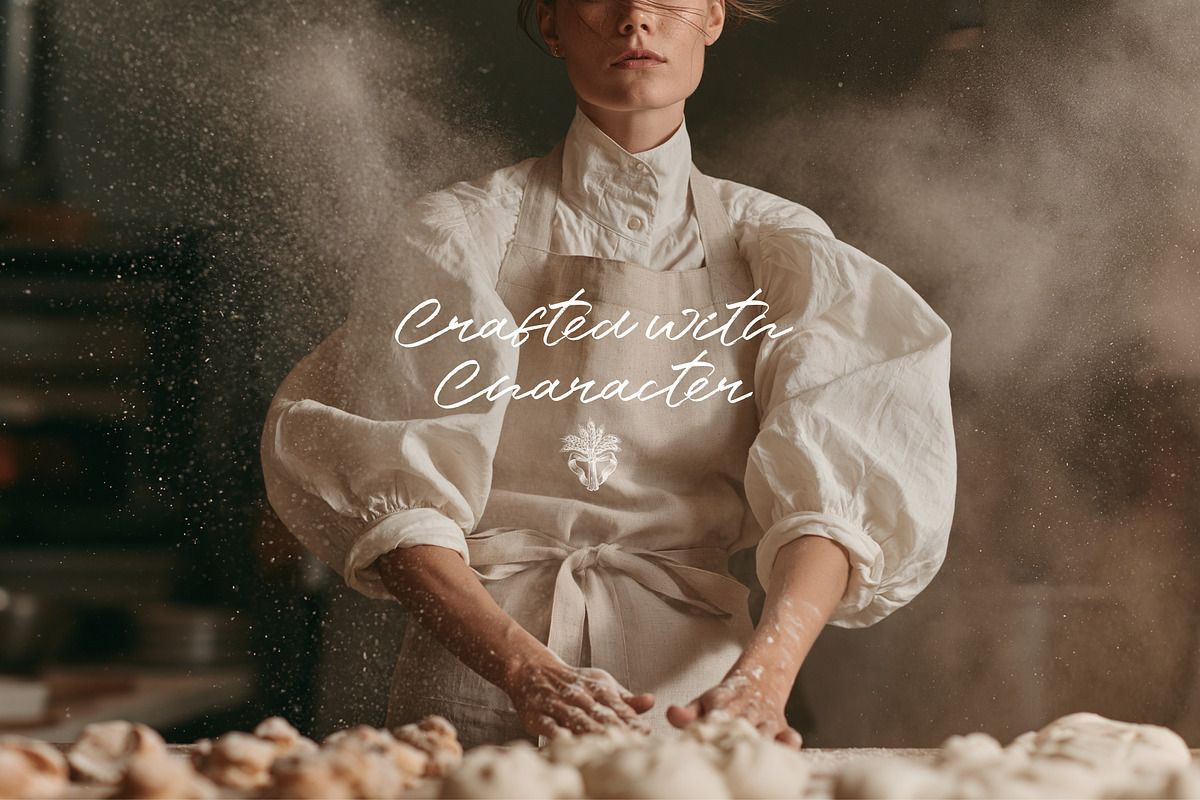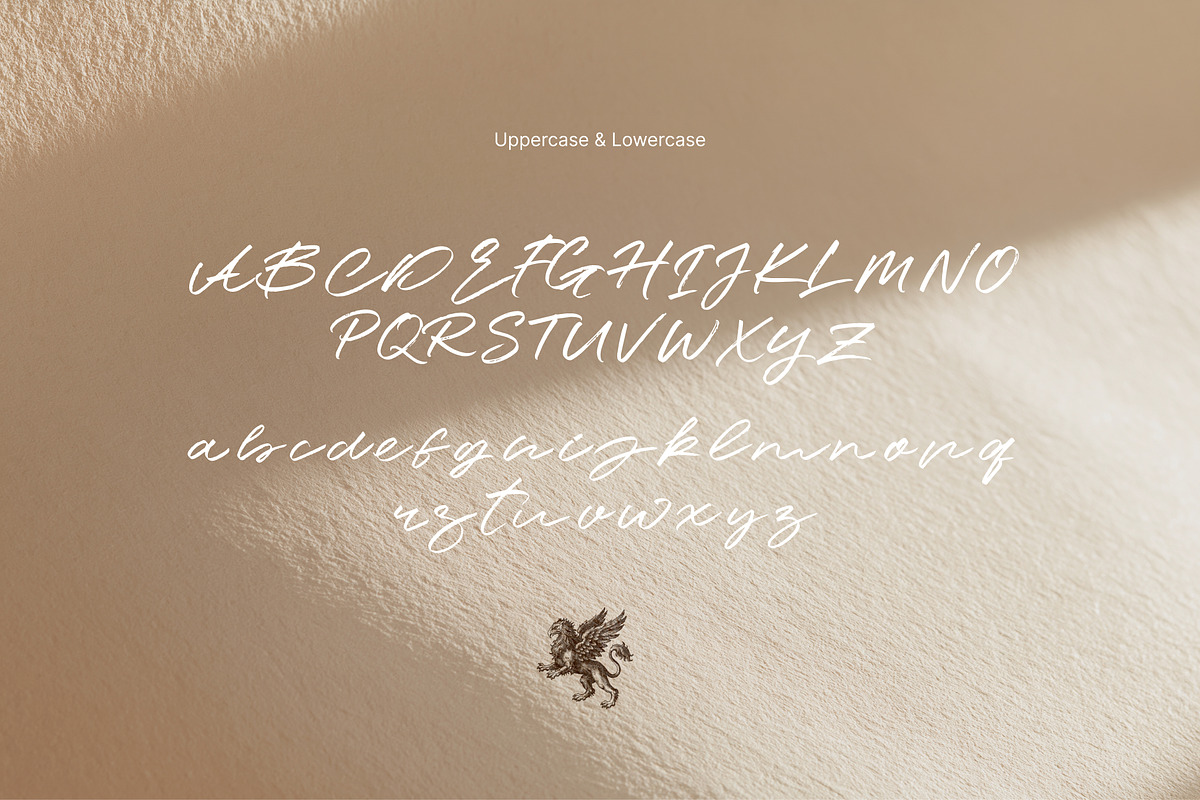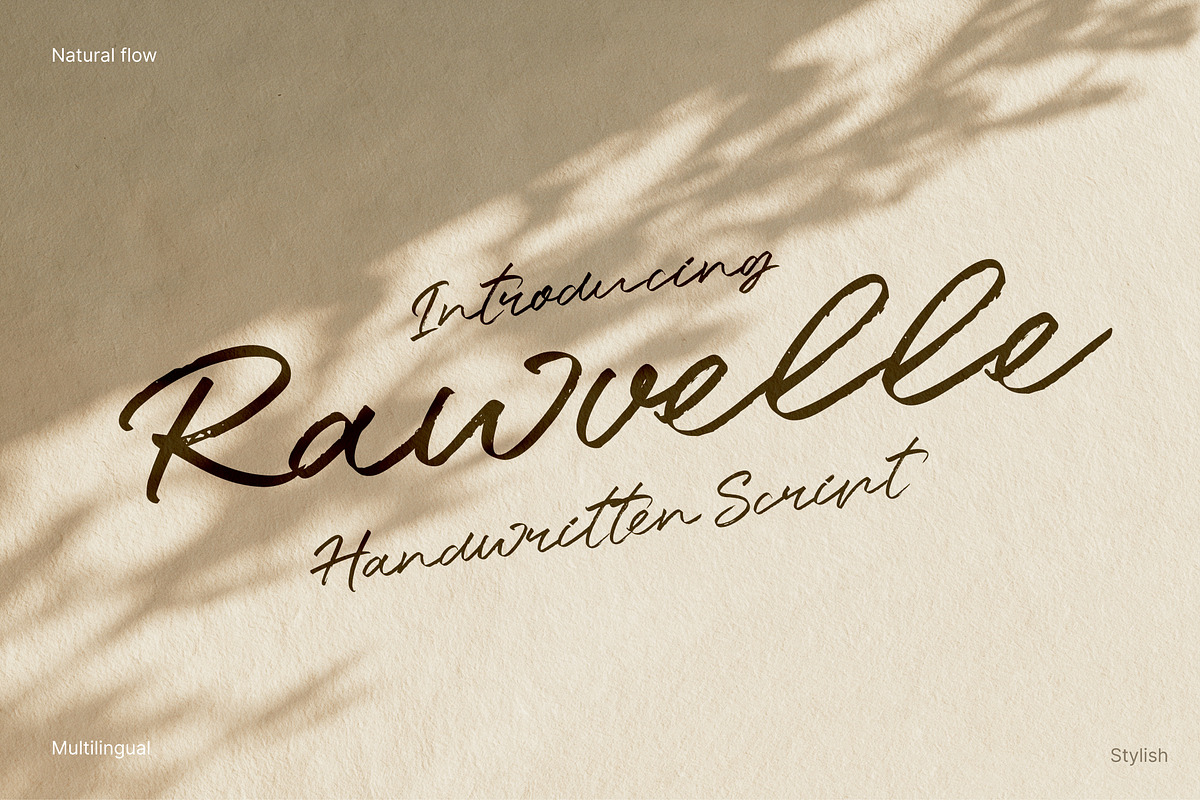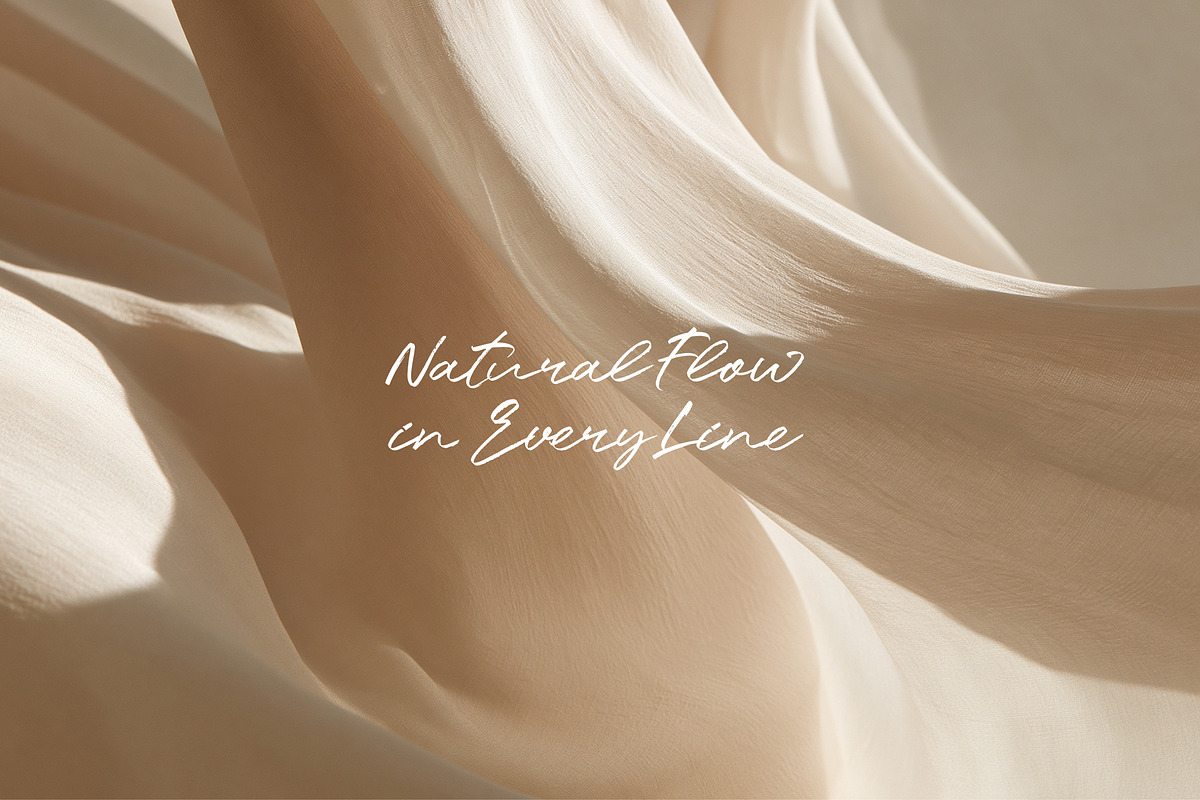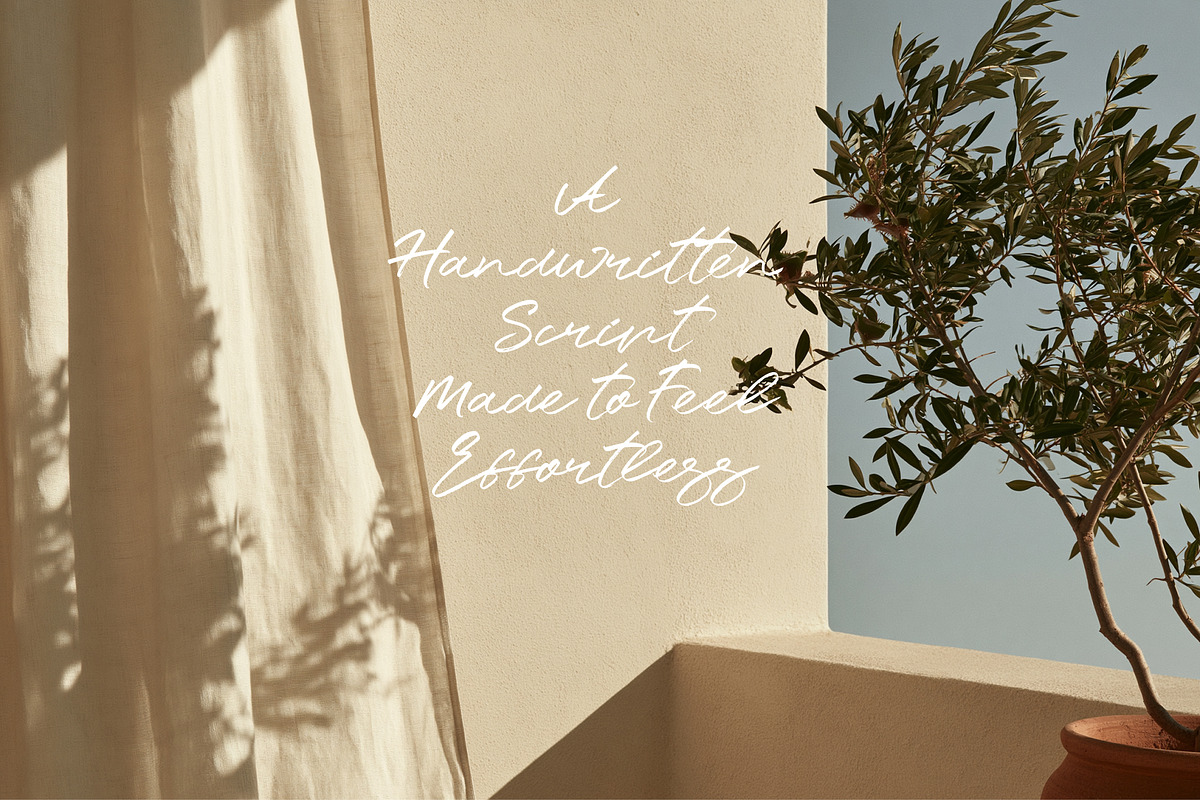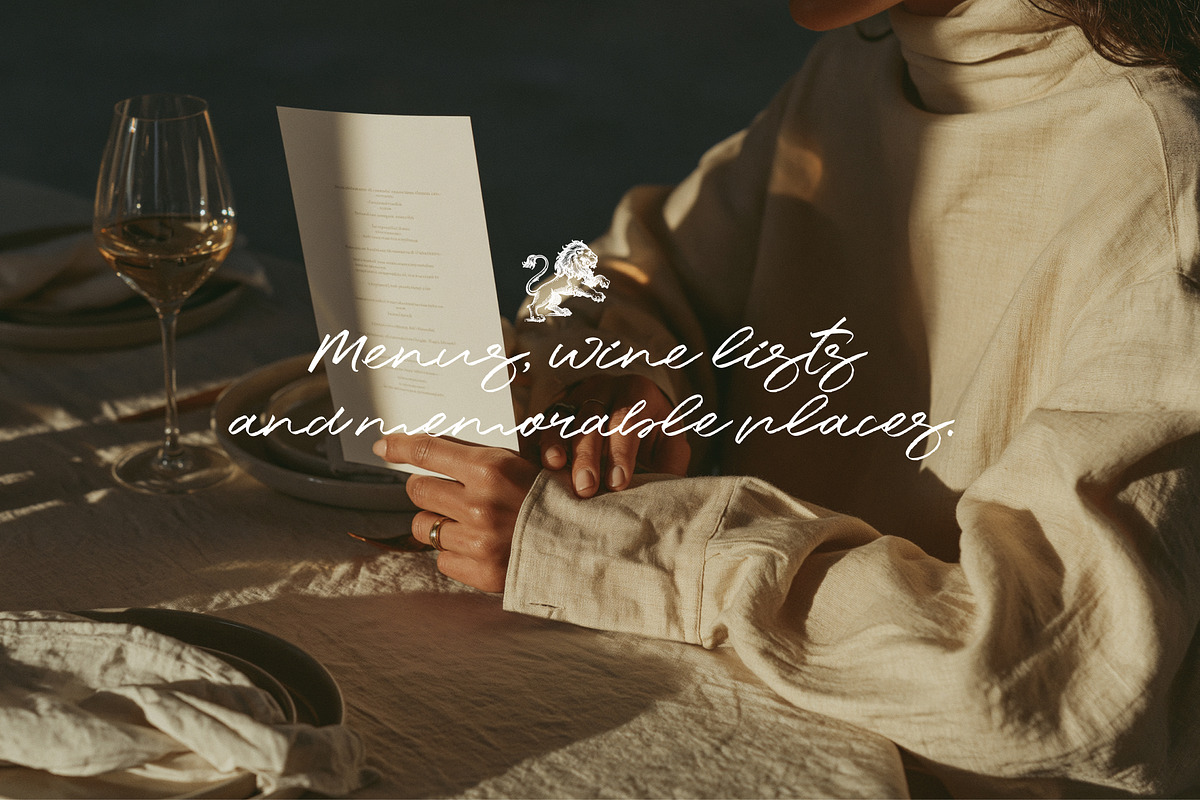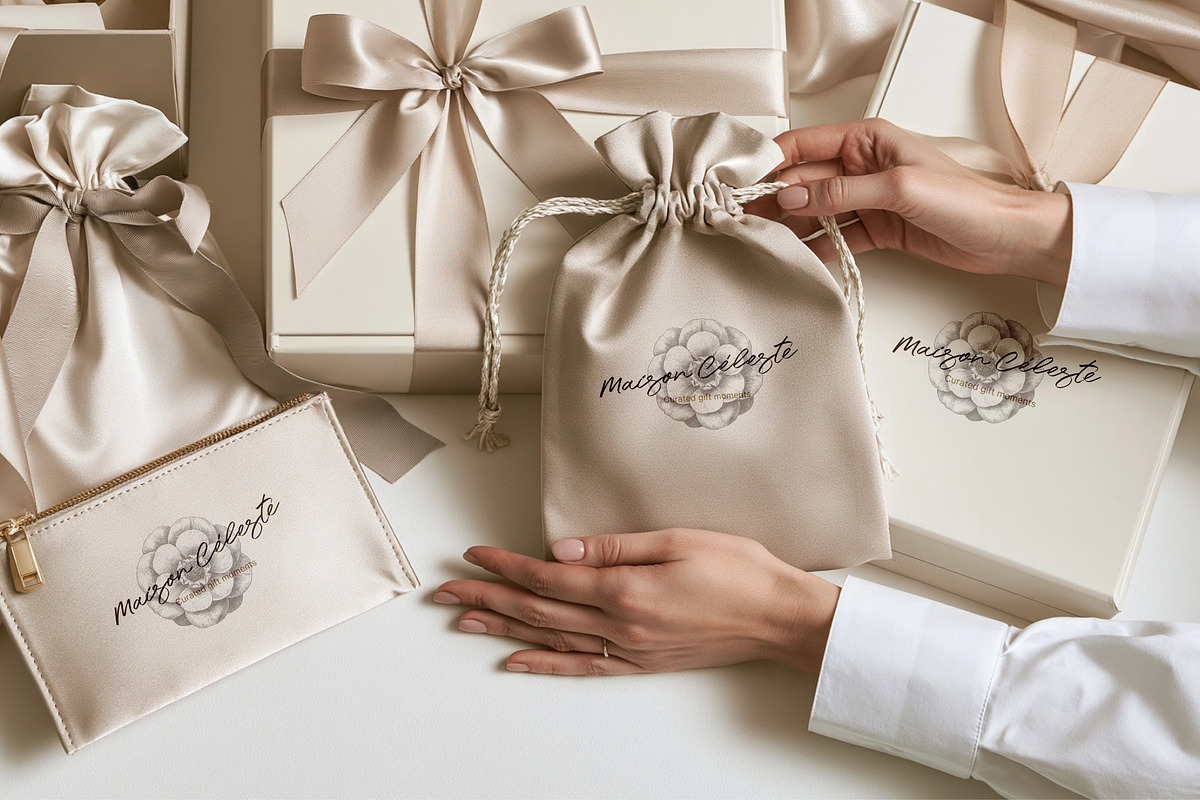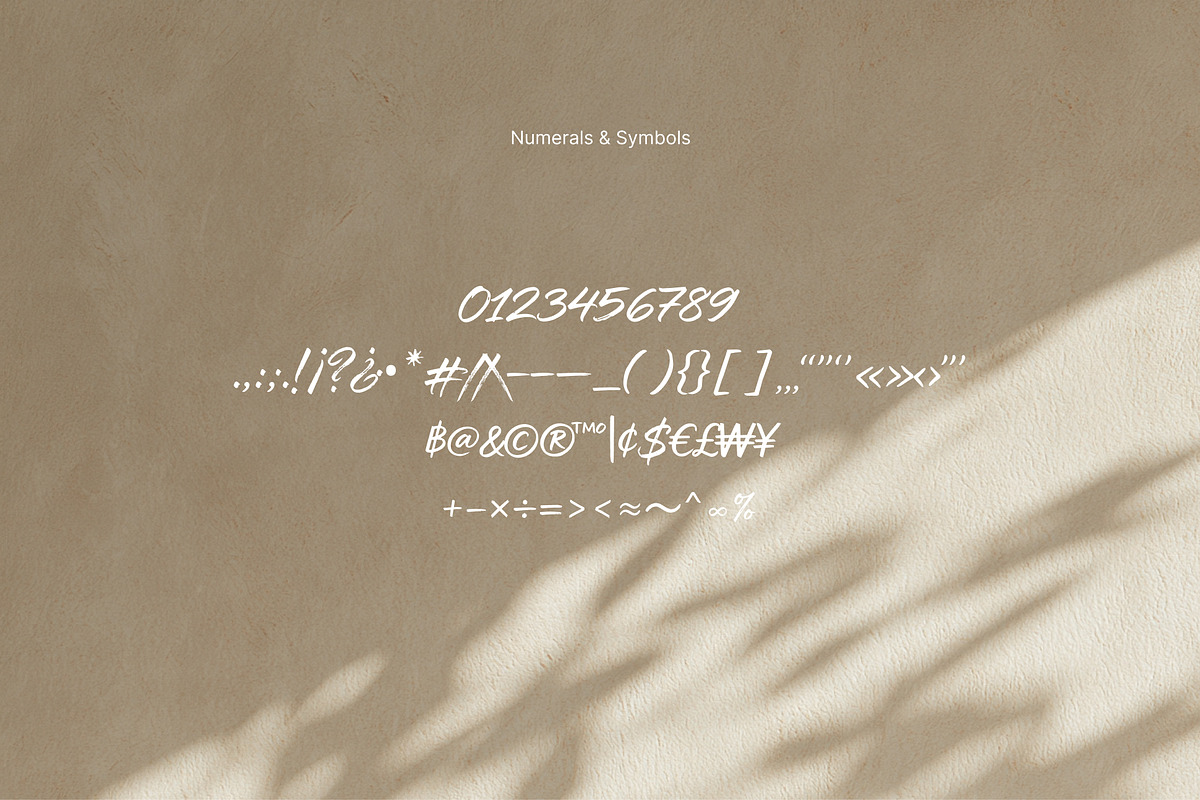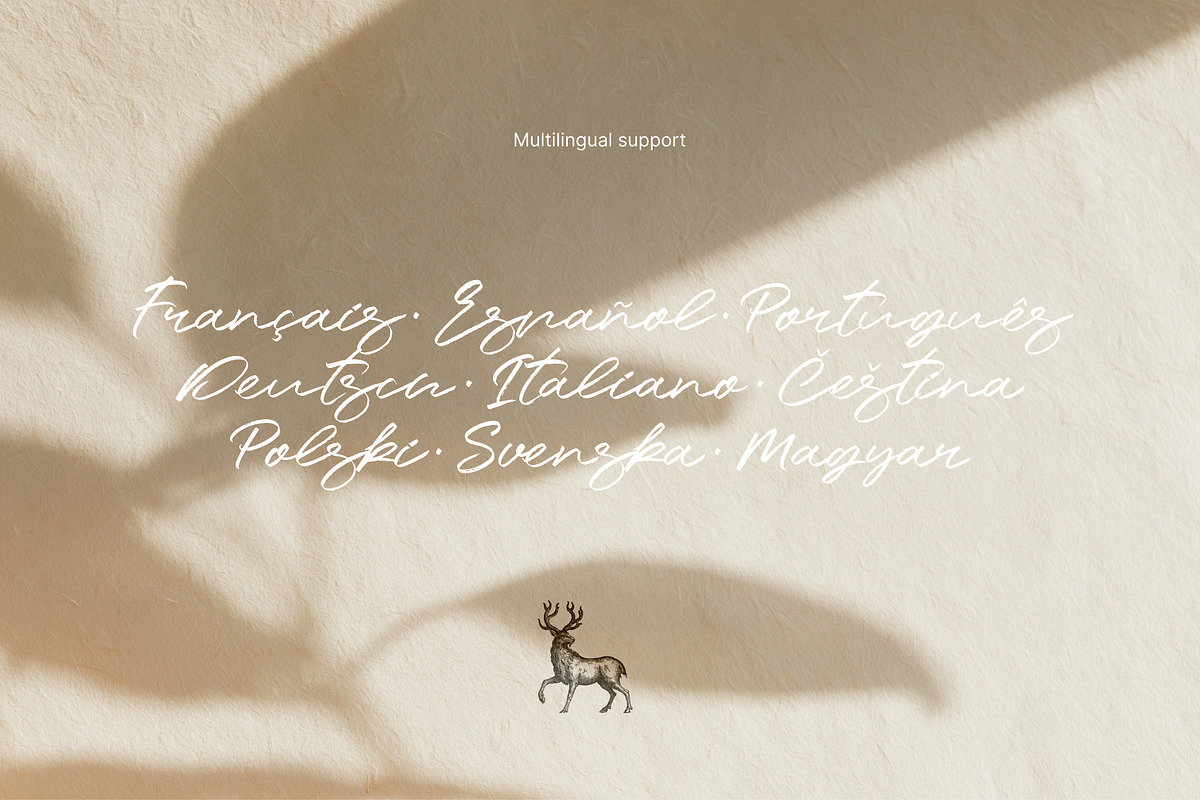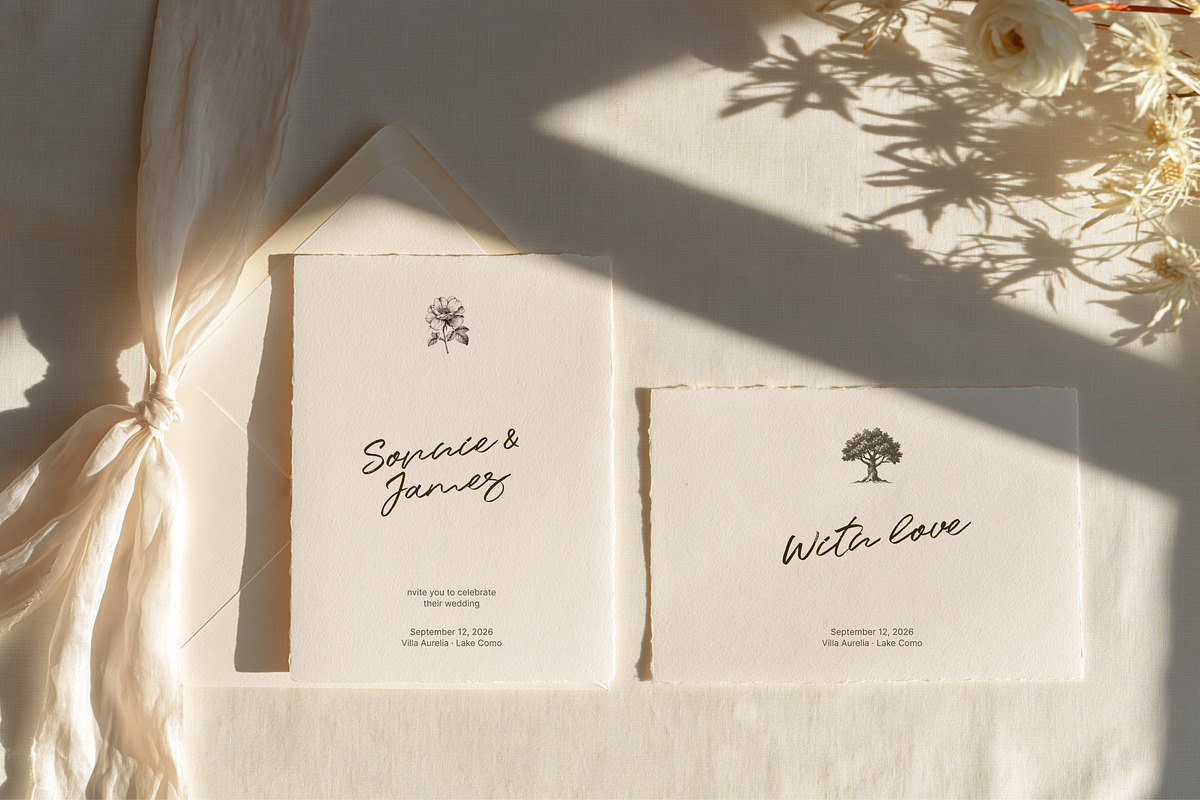
Rawwelle Handwritten Script
Rawwelle is a natural handwritten script font with fluid movement, expressive strokes and an effortless personal character. Inspired by spontaneous handwriting and modern signature lettering, it brings warmth and individuality to contemporary design.
Its relaxed forms work beautifully in logos, branding, packaging, restaurant menus, invitations, fashion projects, social media, editorial layouts, personal identities and creative campaigns.
Rawwelle is especially effective in short headlines, signatures, product names and expressive phrases where typography needs to feel authentic, stylish and human.
Uppercase and lowercase Latin alphabet
Extended Latin characters and diacritics
Multilingual Latin support
Numerals 0–9
Standard and extended punctuation
Currency and common symbols
Stylistic alternate characters
Natural handwritten character
Designed for expressive display typography
Rawwelle is made for designers who want typography to feel personal, fluid and full of character.
Perfect for: Branding, logos, packaging, hospitality, cafés, restaurants, invitations, fashion, beauty, lifestyle, editorial design, social media and personal branding.